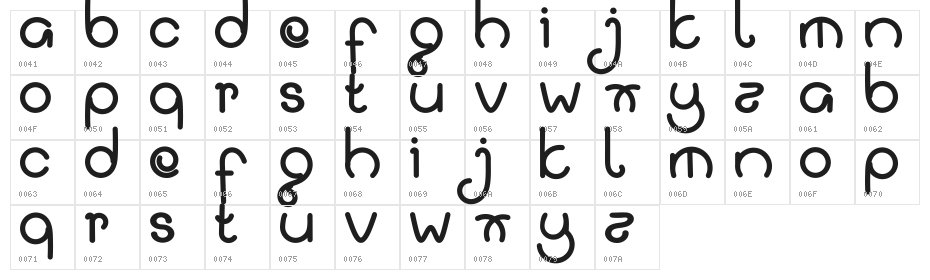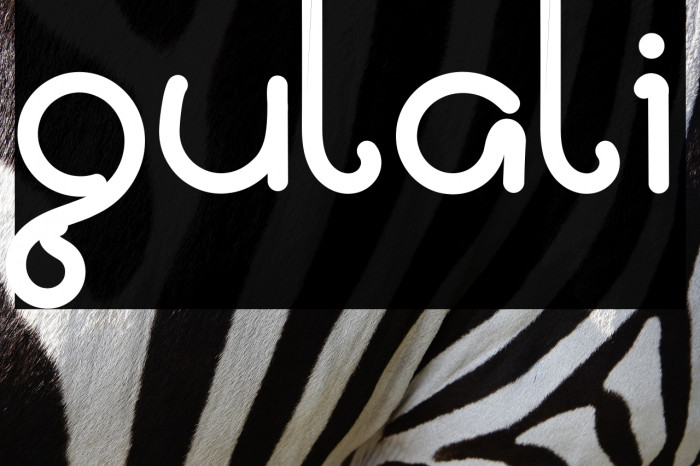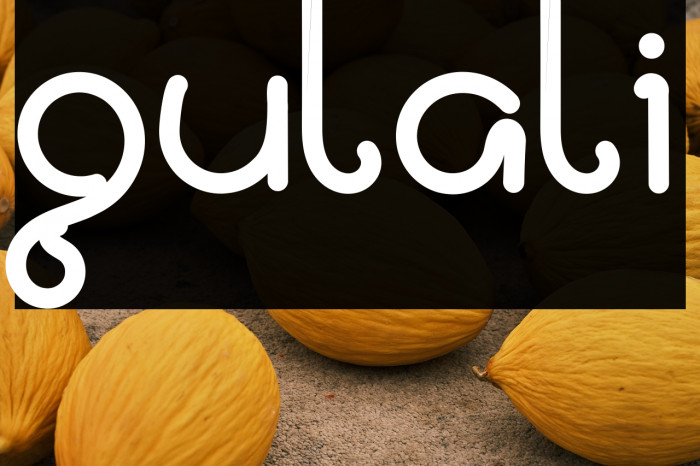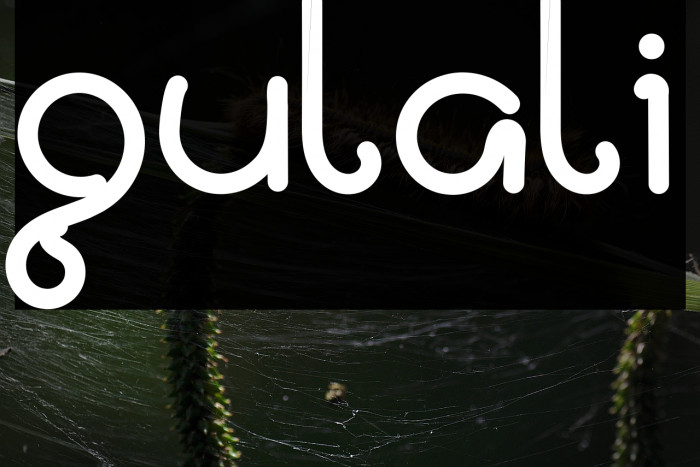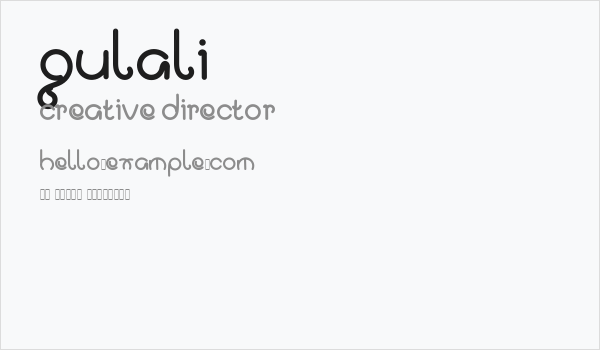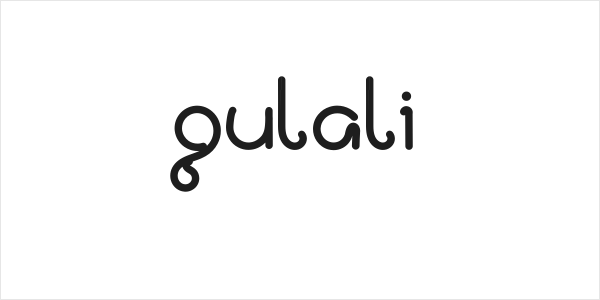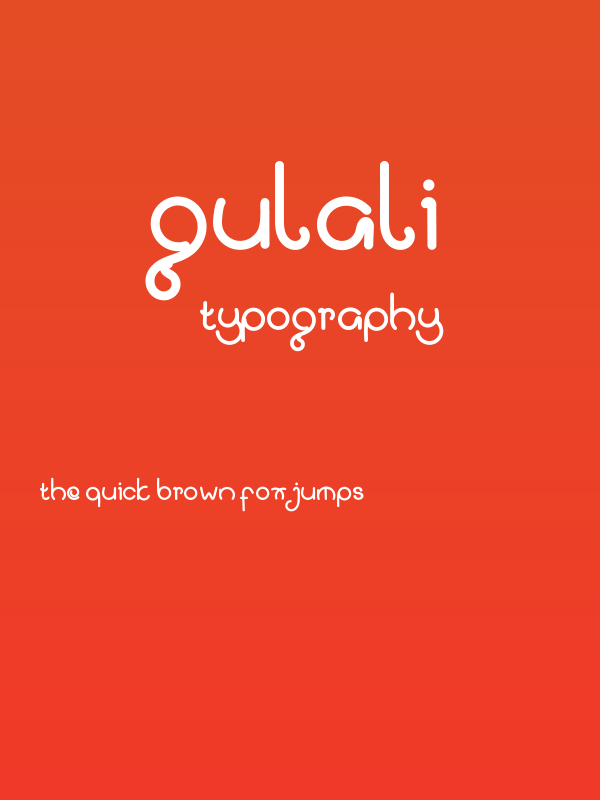
Gulali Font
Gulali Description
This font features a playful and whimsical design, characterized by its rounded and looping letterforms. Each character exhibits a consistent stroke weight, contributing to a harmonious and unified appearance. The design incorporates unique curves and swirls, particularly noticeable in letters like 'g', 'j', and 'y', which add a touch of creativity and flair. The font maintains a consistent baseline and x-height, ensuring readability while still offering a distinct personality. Its style is reminiscent of hand-drawn or doodle-like aesthetics, making it suitable for projects that require a fun and informal vibe.